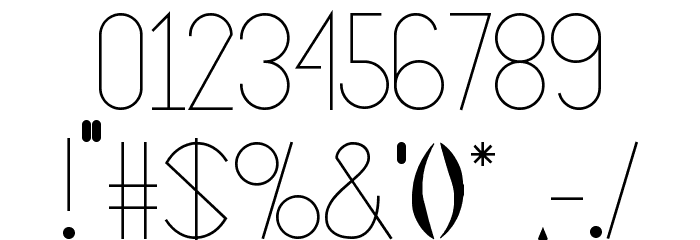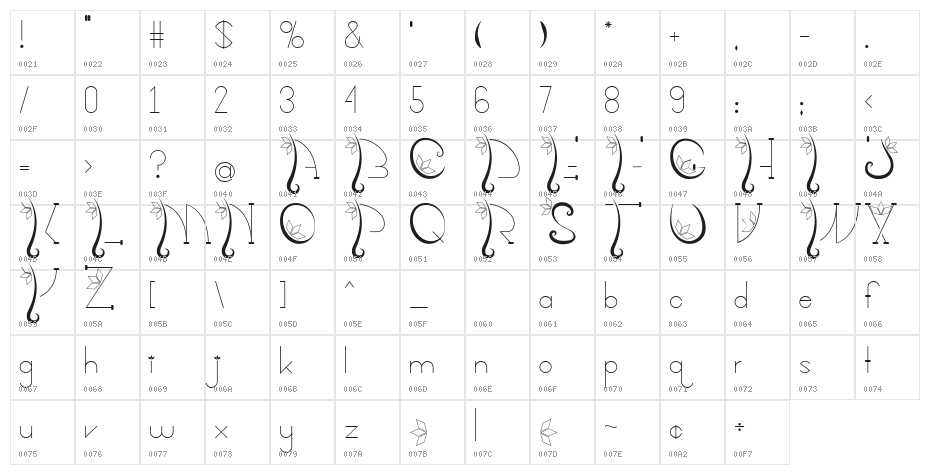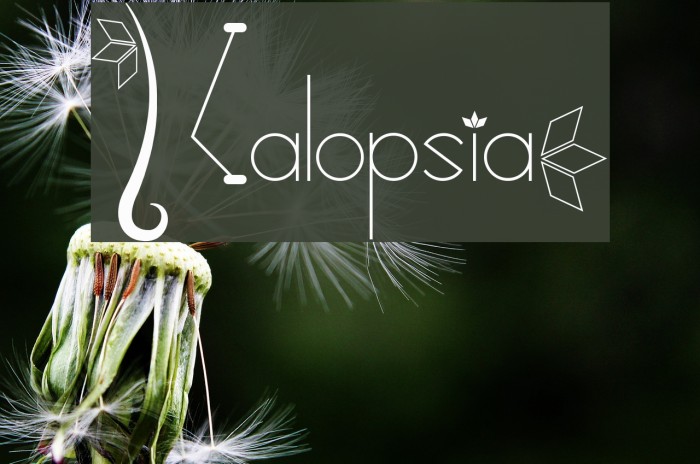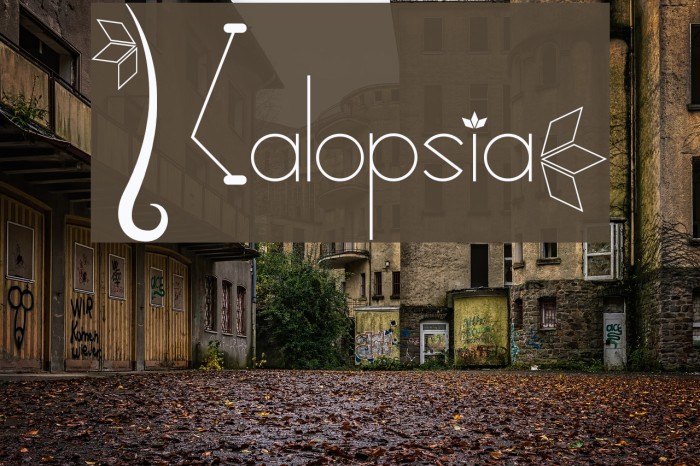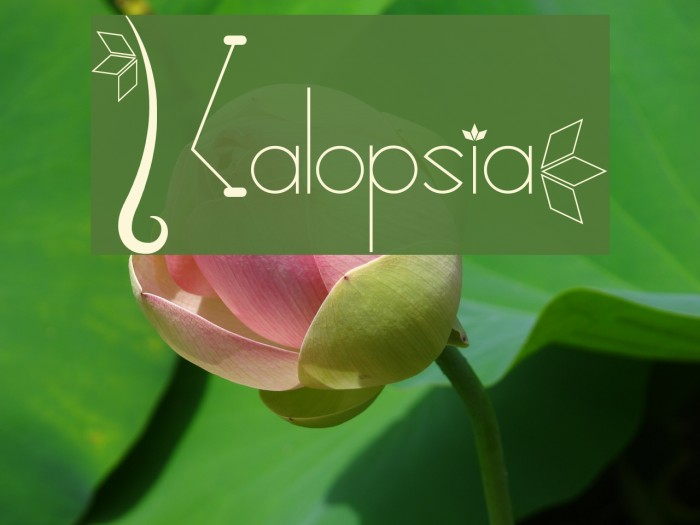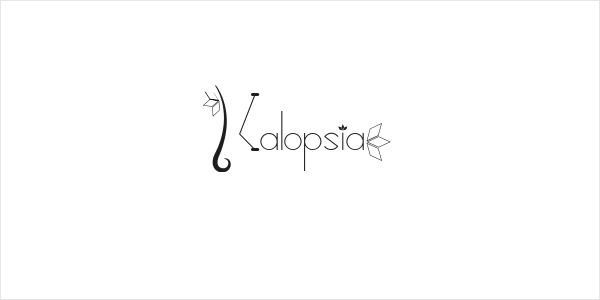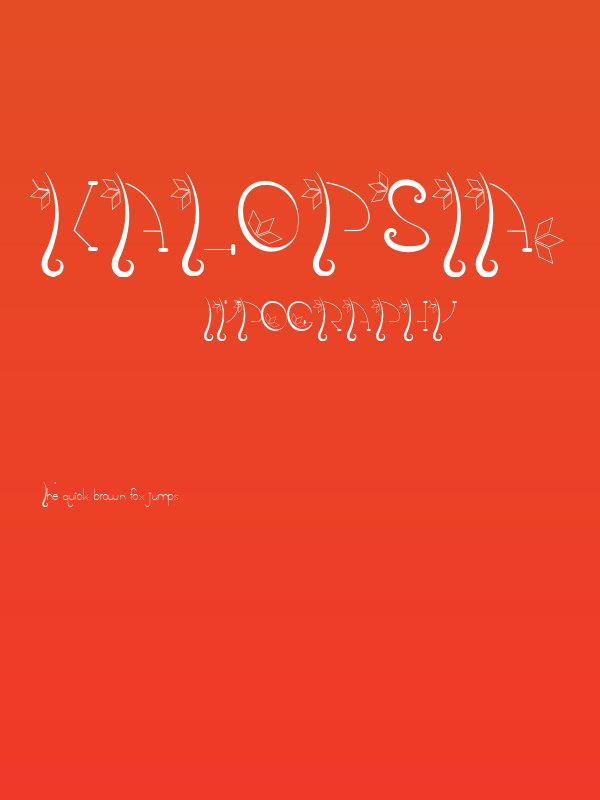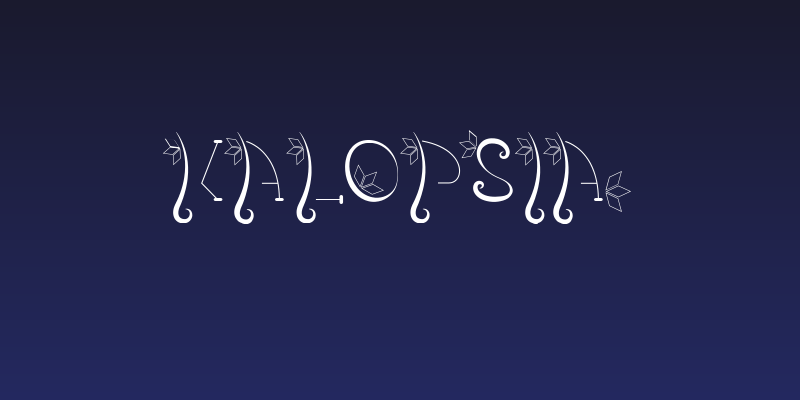
Kalopsia} Font
Kalopsia} Description
This font features a whimsical and decorative style, characterized by its elegant curves and flourishes. The uppercase letters are adorned with intricate leaf-like embellishments, adding a touch of nature-inspired artistry. The lowercase letters maintain a sleek and modern appearance, with some characters featuring unique accents such as crowns or dots. The numerals are clean and straightforward, complementing the overall aesthetic. Special characters are designed with the same attention to detail, ensuring consistency throughout the set. This font combines elements of both decorative and modern styles, making it versatile for various creative applications.
| Proposed Projects | Ideal for wedding invitations, branding for eco-friendly products, artistic posters, and creative logos. |